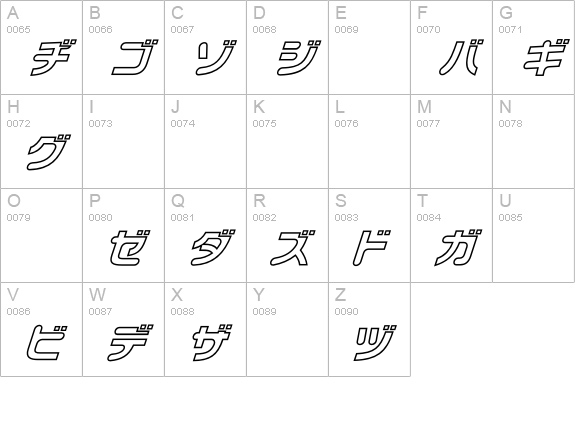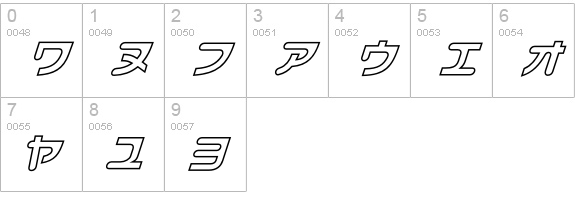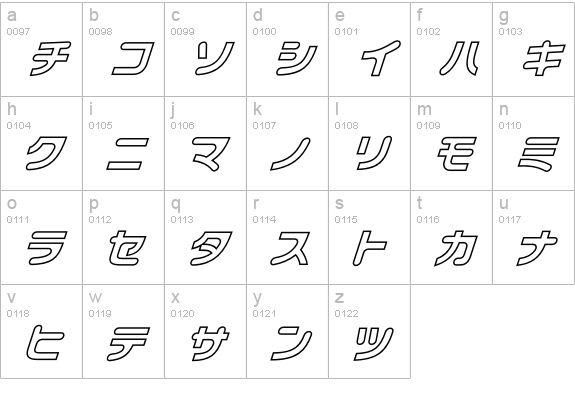
Chibacity-Outline Font Details
Chibacity-Outline font is a modern and stylish typeface that is perfect for making your designs stand out. With its clean lines and sleek appearance, this font is sure to make a statement. The outline style adds a unique touch that will catch the eye of anyone who sees it. Best of all, Chibacity-Outline font is completely free to download at FontsMarket.com. Whether you're working on a project for work, school, or personal use, this font is a great choice. Don't miss out on the opportunity to enhance your designs with this beautiful and versatile typeface. Download Chibacity-Outline font today and start creating captivating visuals that will impress everyone.